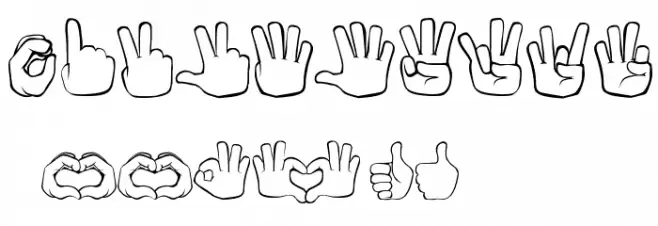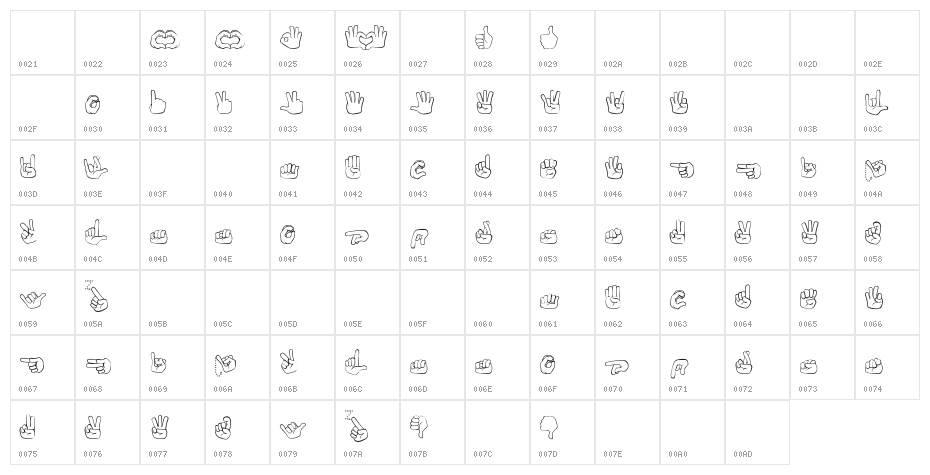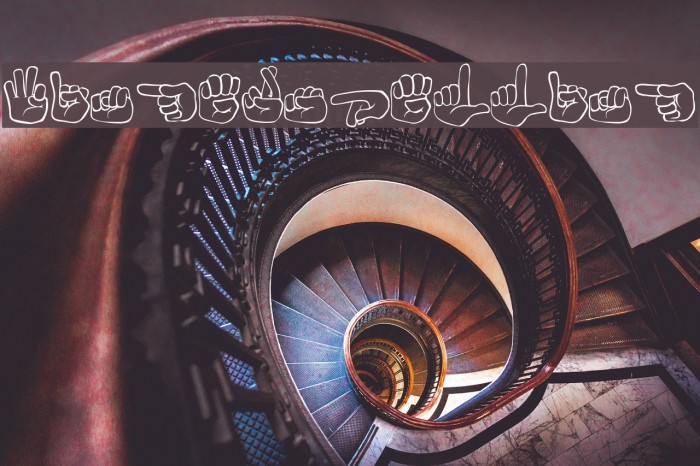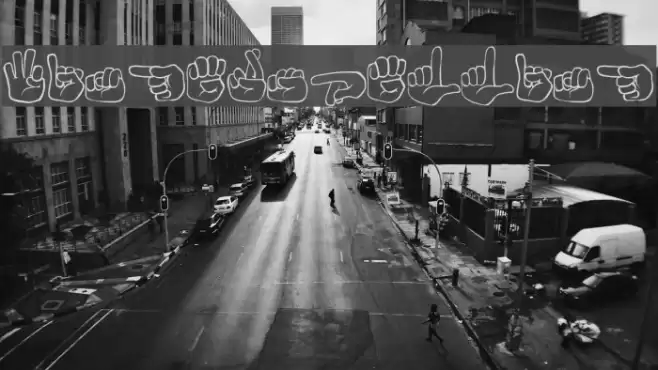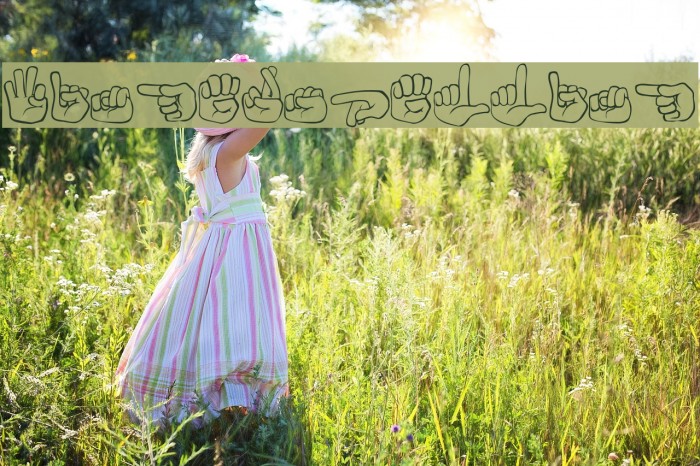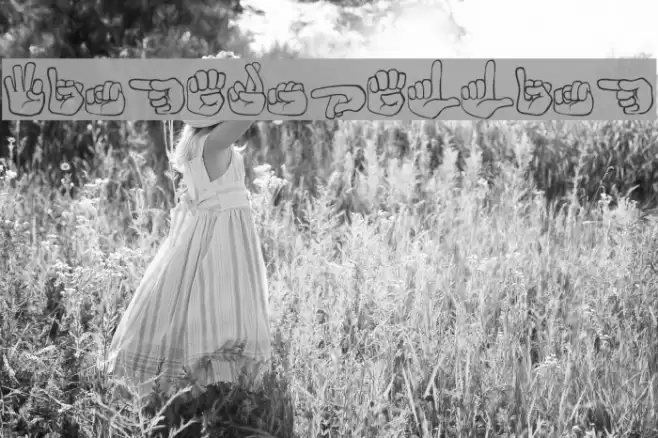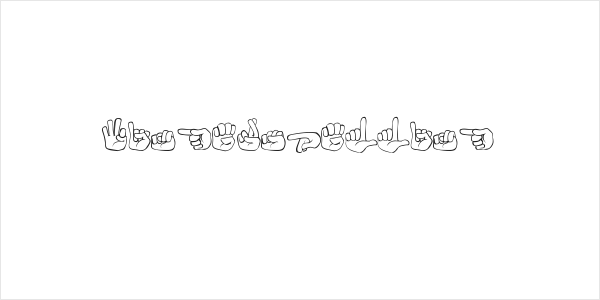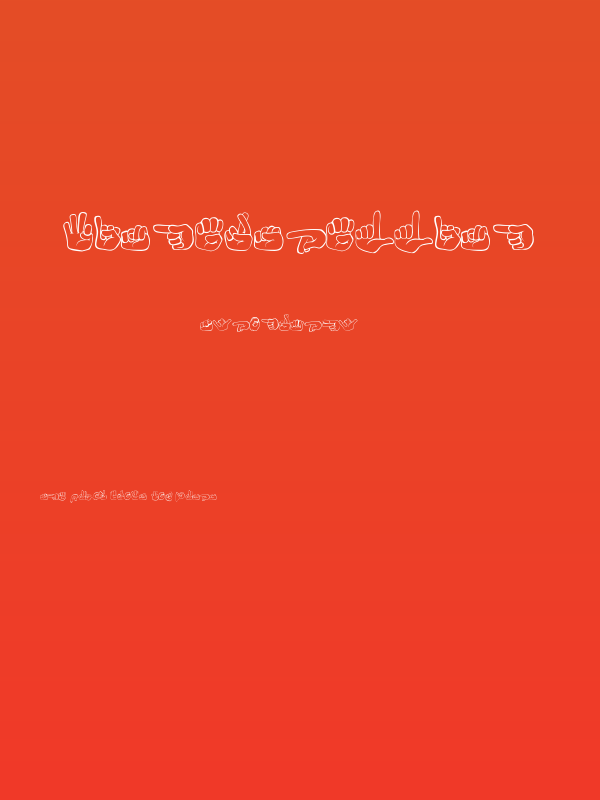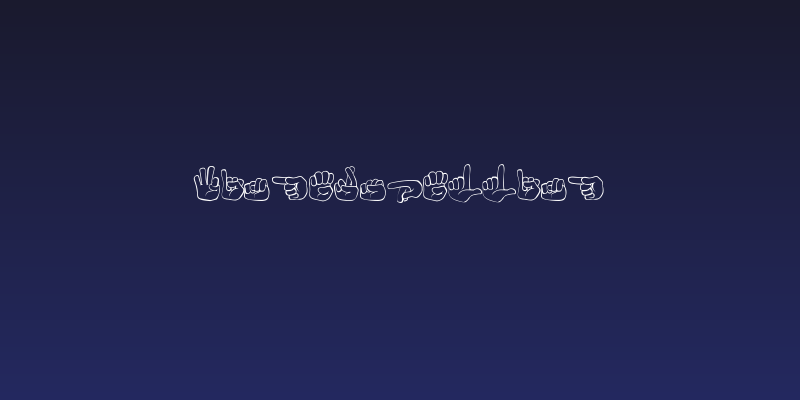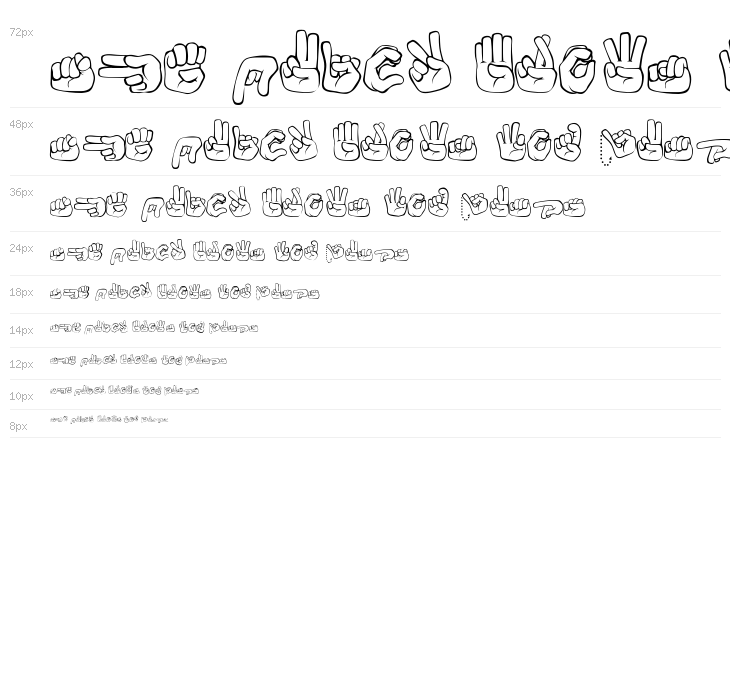
Fingerspelling Font
Fingerspelling Description
A playful, illustrative font using outlined hand shapes to represent each letter, number, and symbol through fingerspelling gestures. The characters are clear, with consistent line thickness and rounded contours, mimicking American Sign Language hand signs.
| Overall Style | Playful, Illustrative, Educational |
| Use Case | Headlines, Posters, Educational tools, Logos |
| Proposed Projects | Educational materials, accessibility resources, children's books, playful branding, awareness campaigns. |